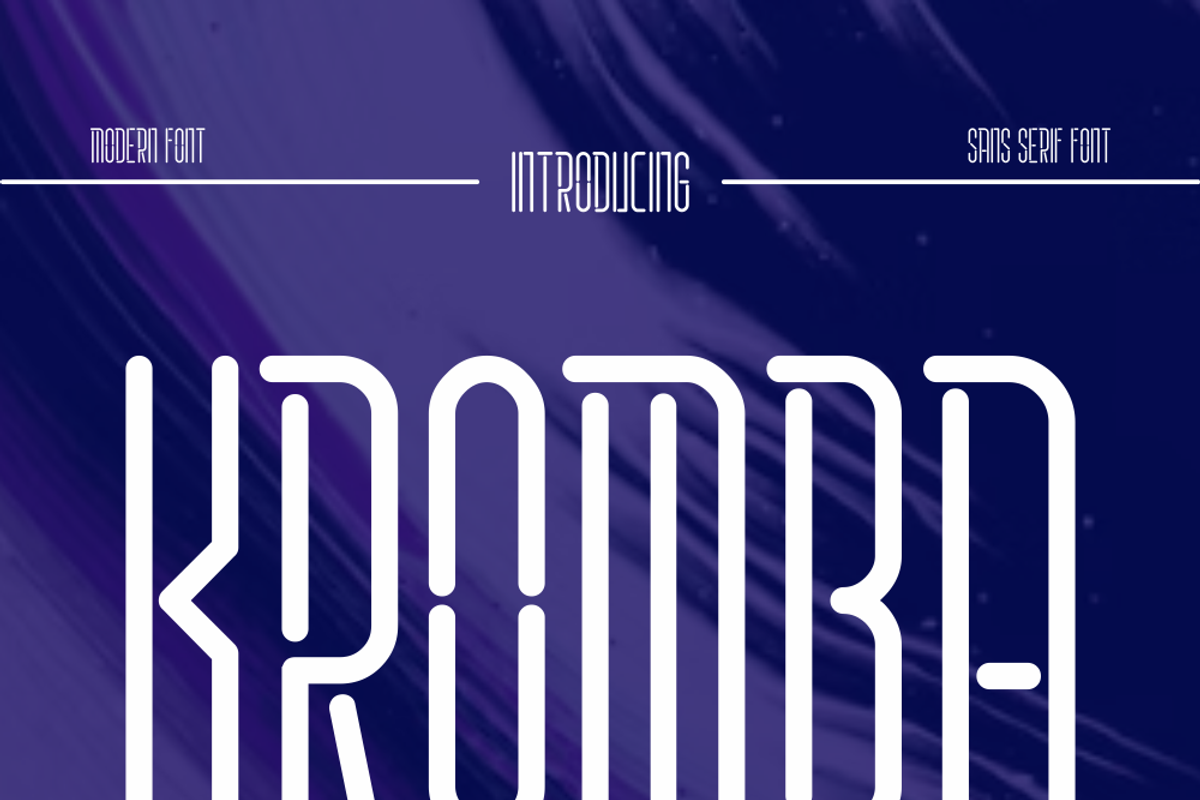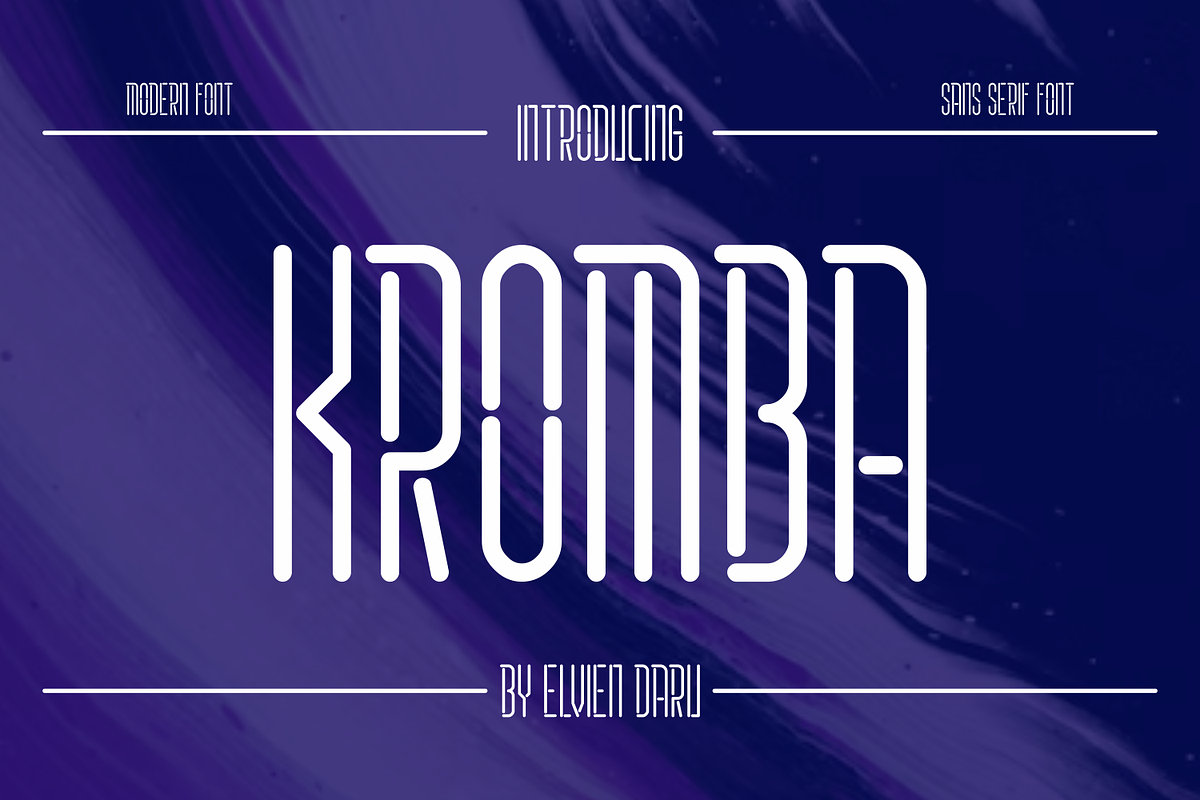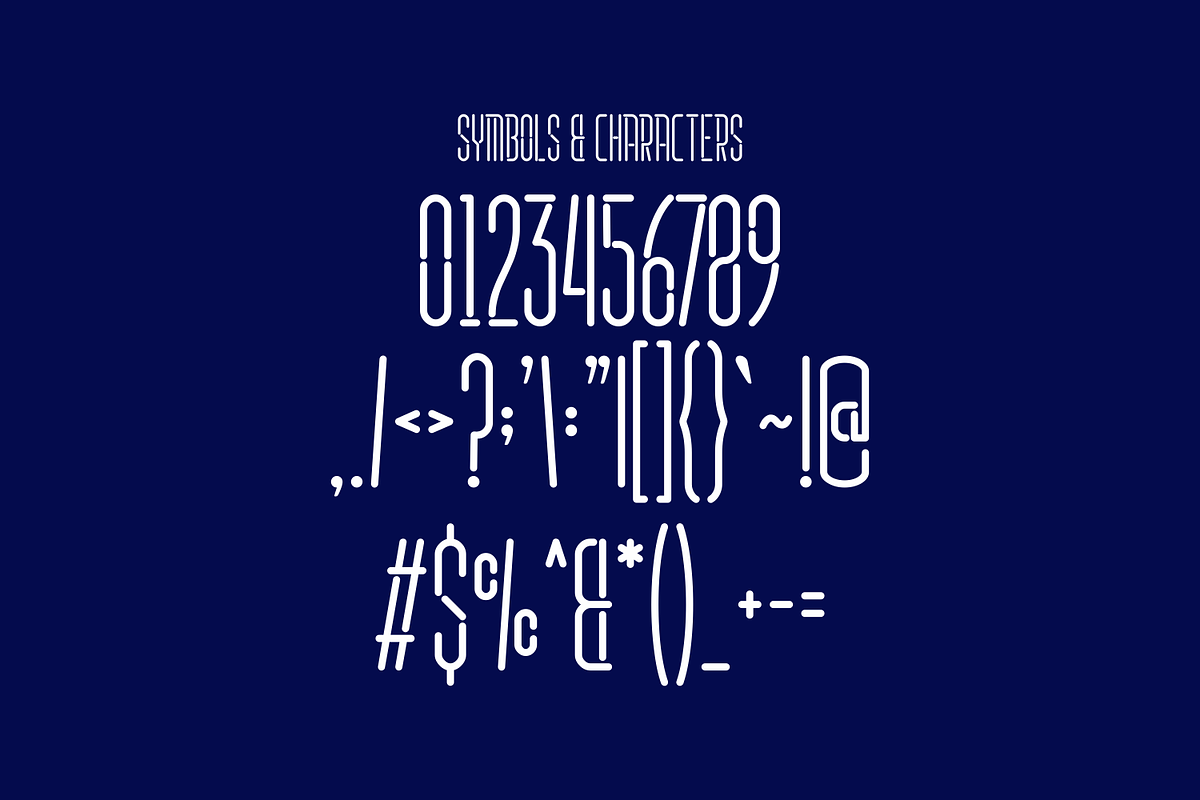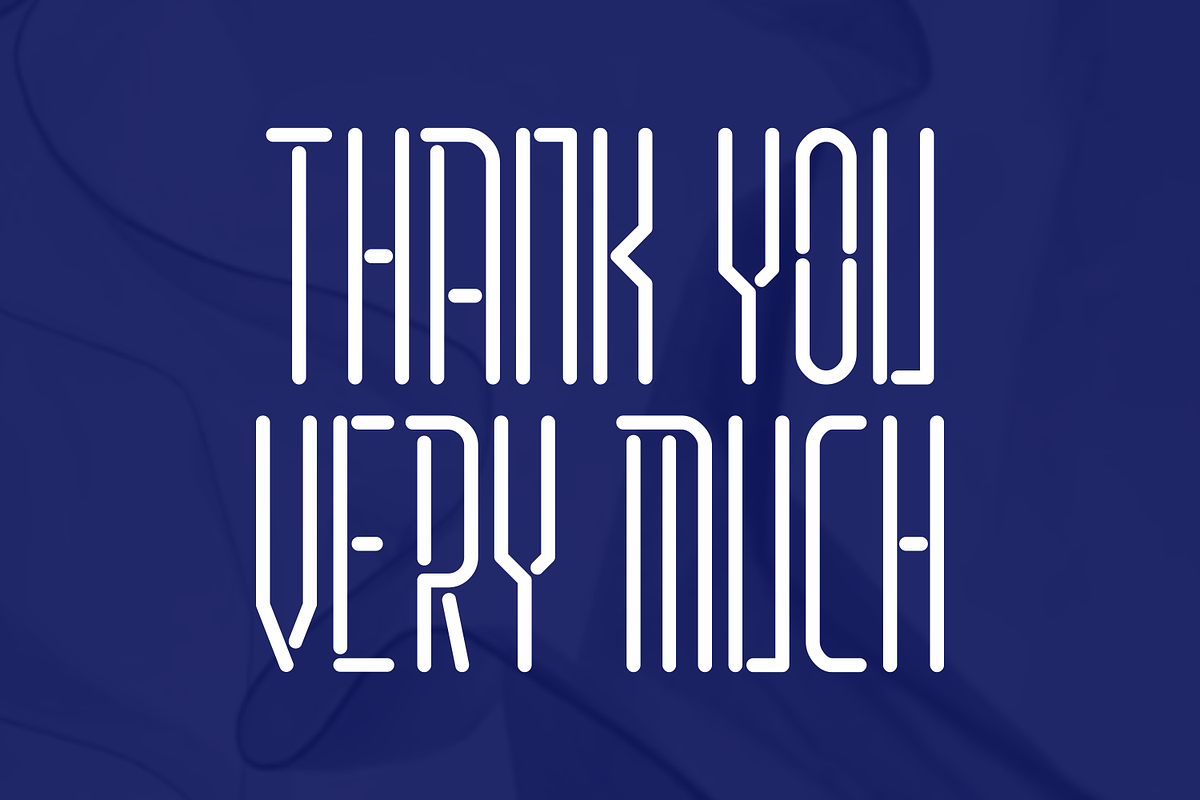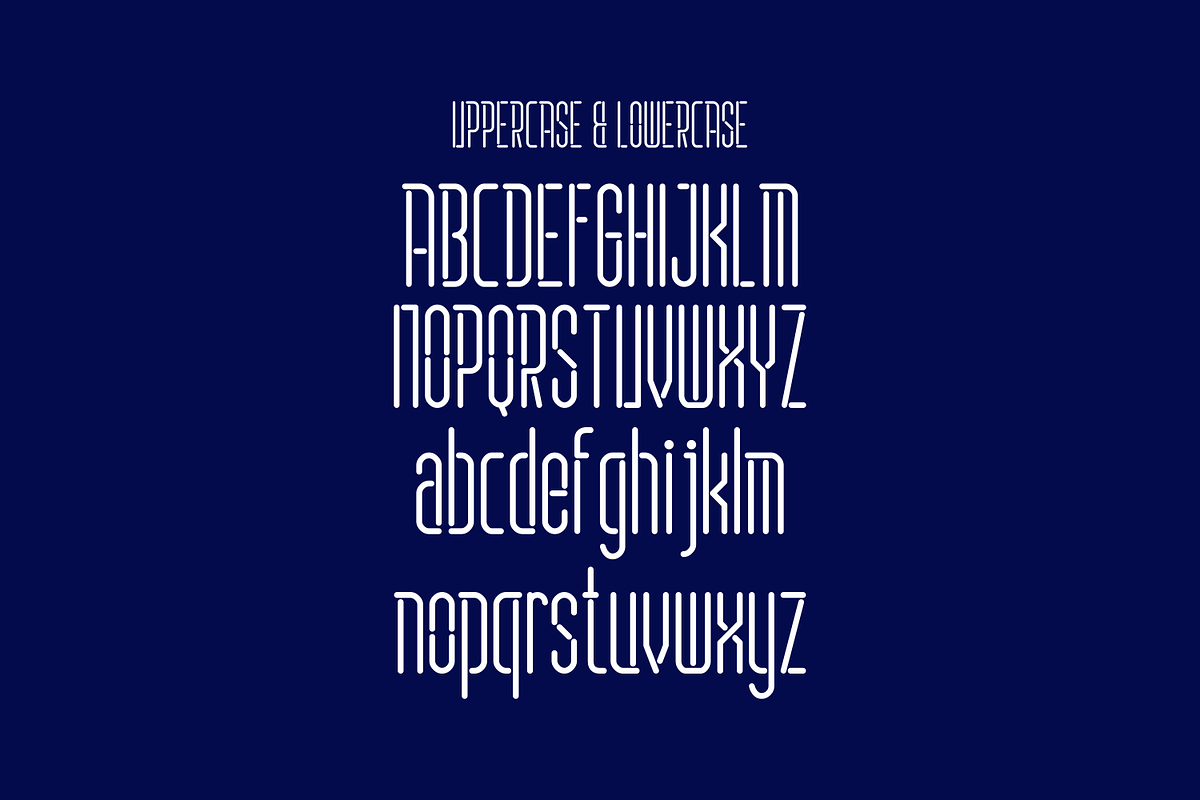
Kromba
Kromba Perfectly suited on print/screen. it’s perfect for Branding, name card, poster, logo, magazine, cover, banner, t-shirt and headers, or even large-scale artwork.